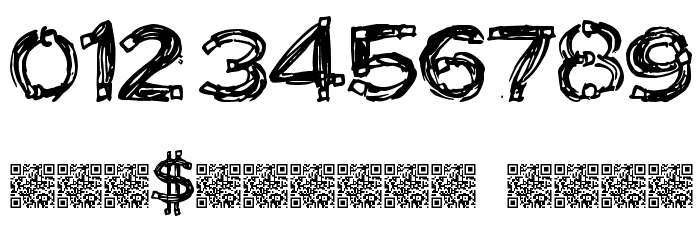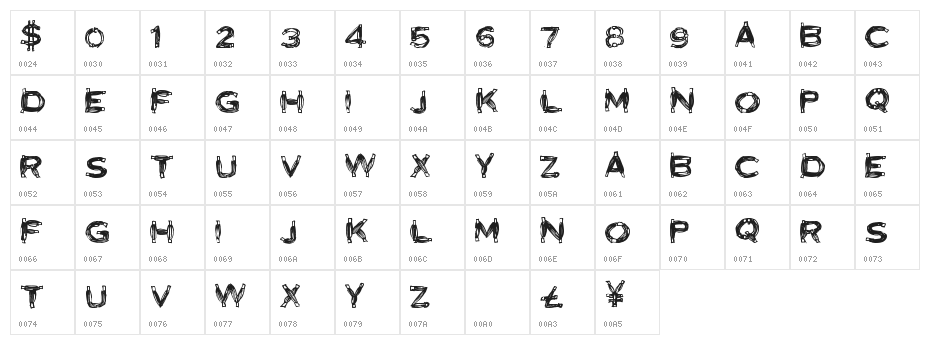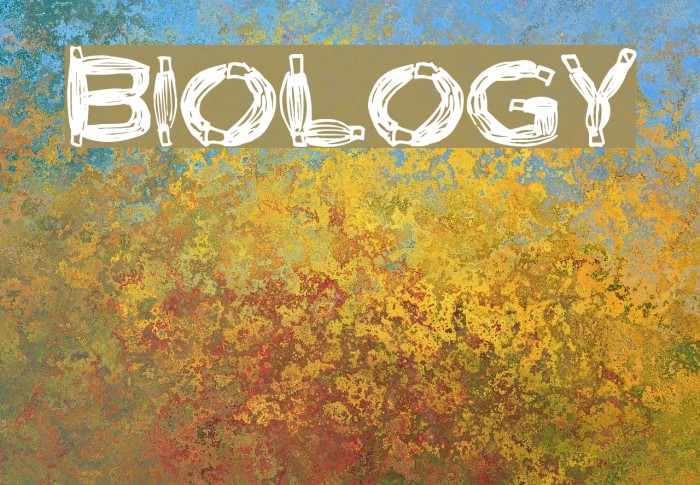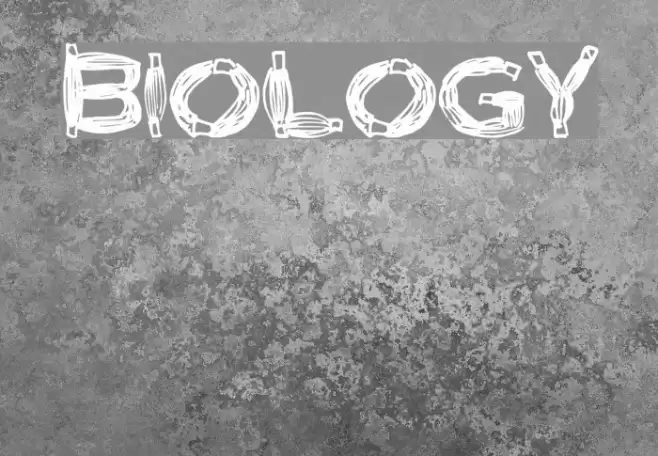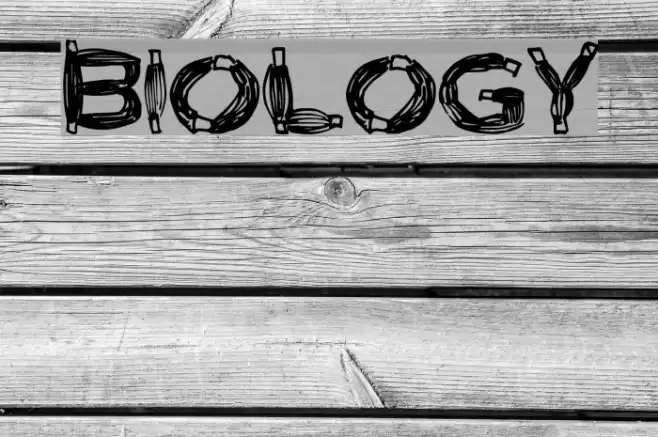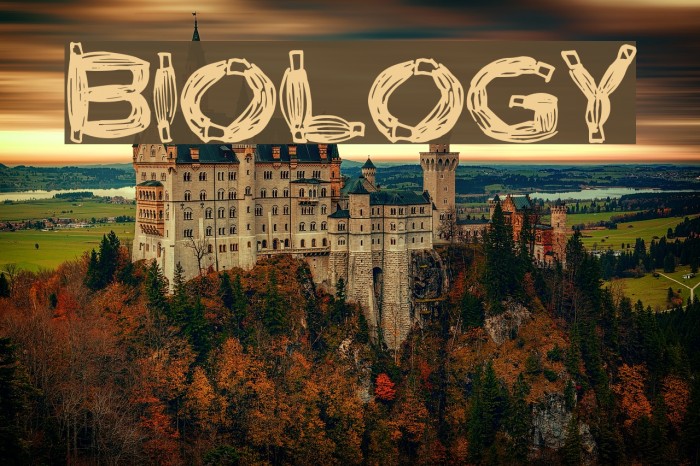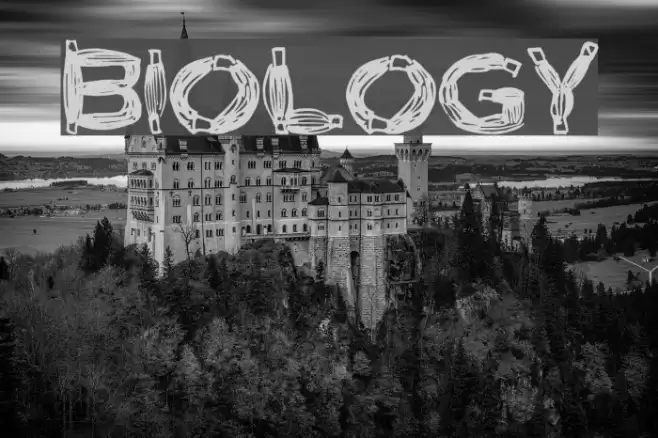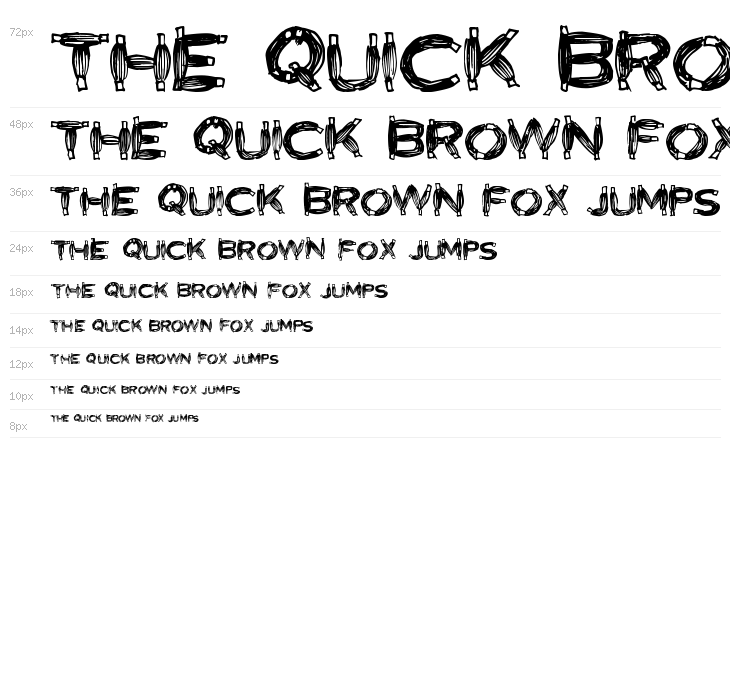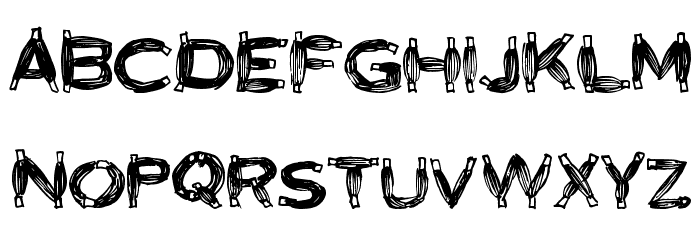
Biology Font
Biology Description
This font features a unique, organic design that mimics the intricate patterns found in nature, resembling cellular structures or microscopic organisms. The characters are bold and heavily stylized, with each letter and number appearing as if it is constructed from a series of overlapping lines and shapes. This creates a textured, almost three-dimensional effect that draws the eye. The font is highly decorative, making it ideal for projects that require a distinctive and artistic touch. Its complex design suggests a sense of movement and life, making it suitable for creative and experimental uses.
| Use Case | Headlines, Logos, Artistic projects |
| Proposed Projects | Ideal for science-themed posters, artistic projects, educational materials, and creative branding. |